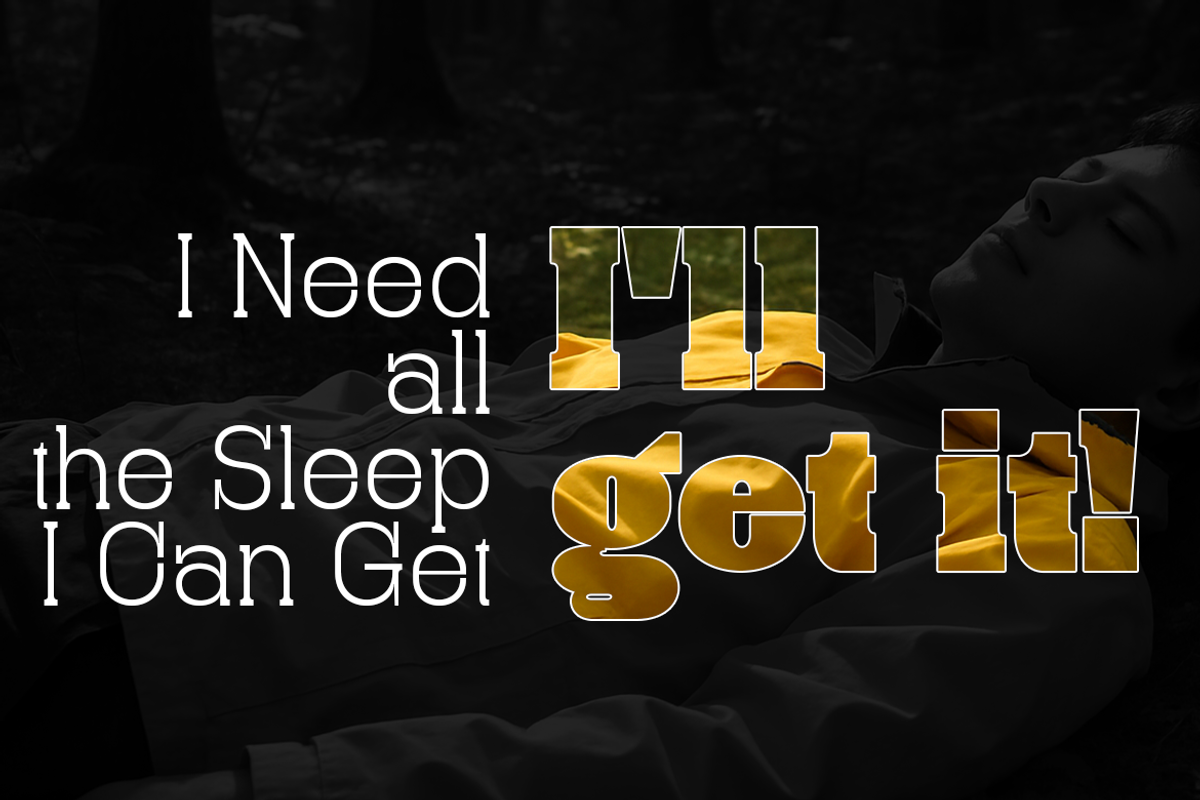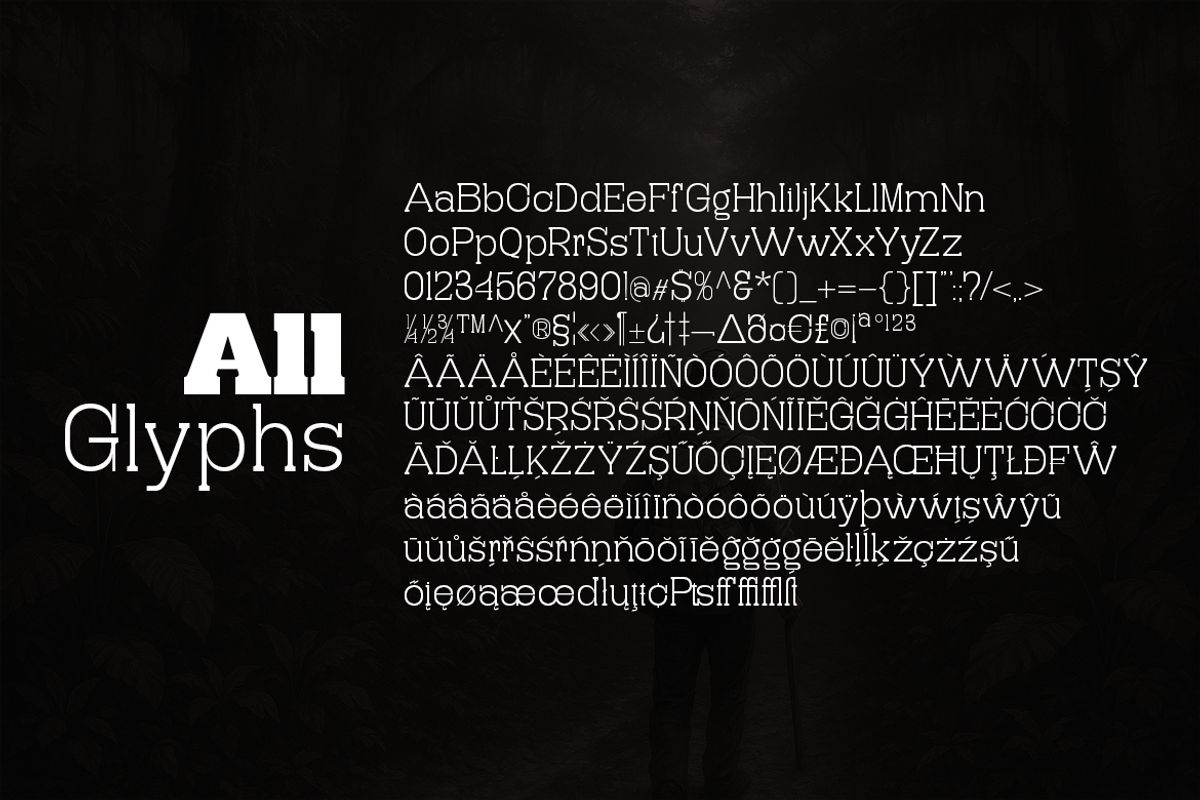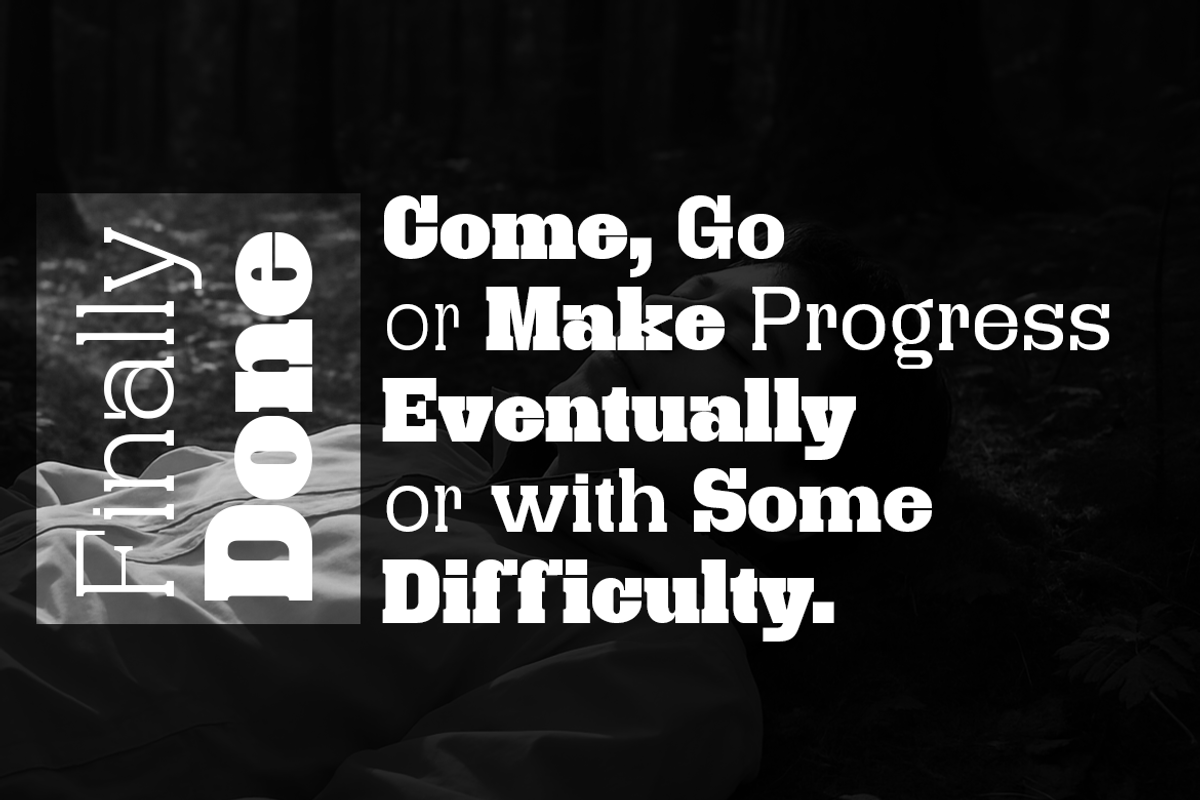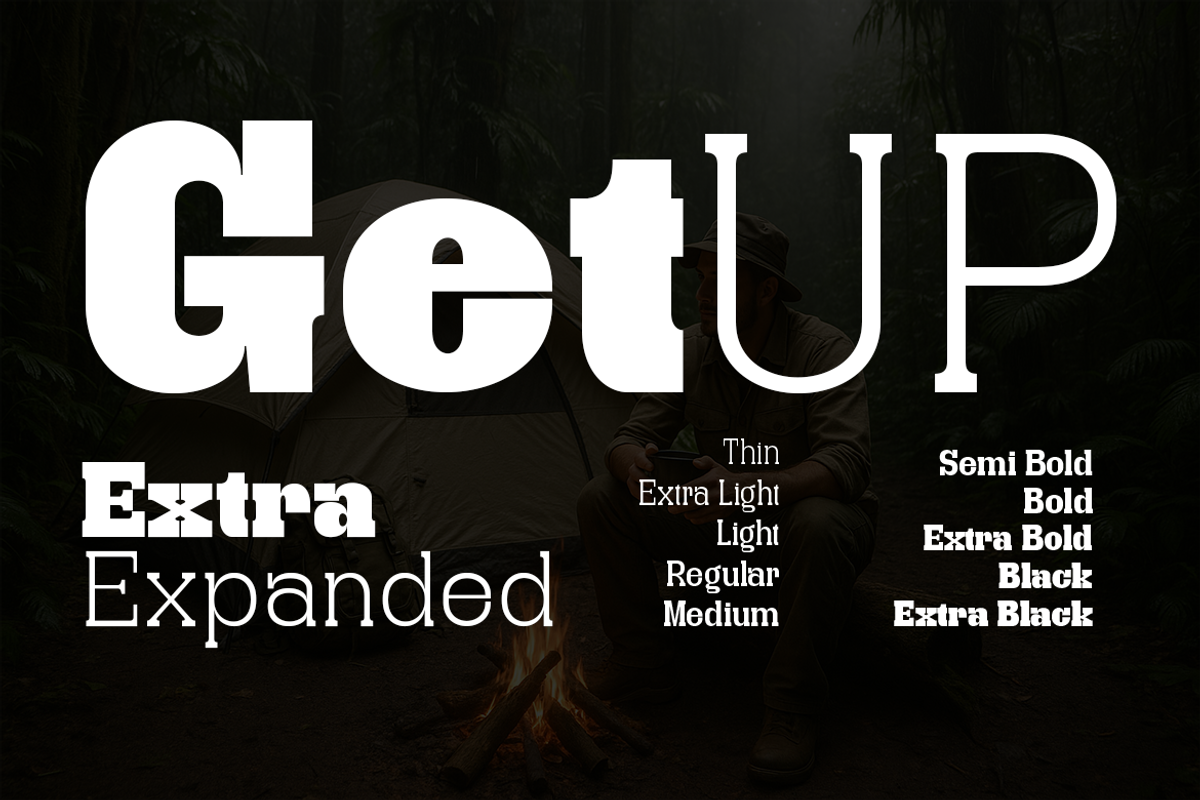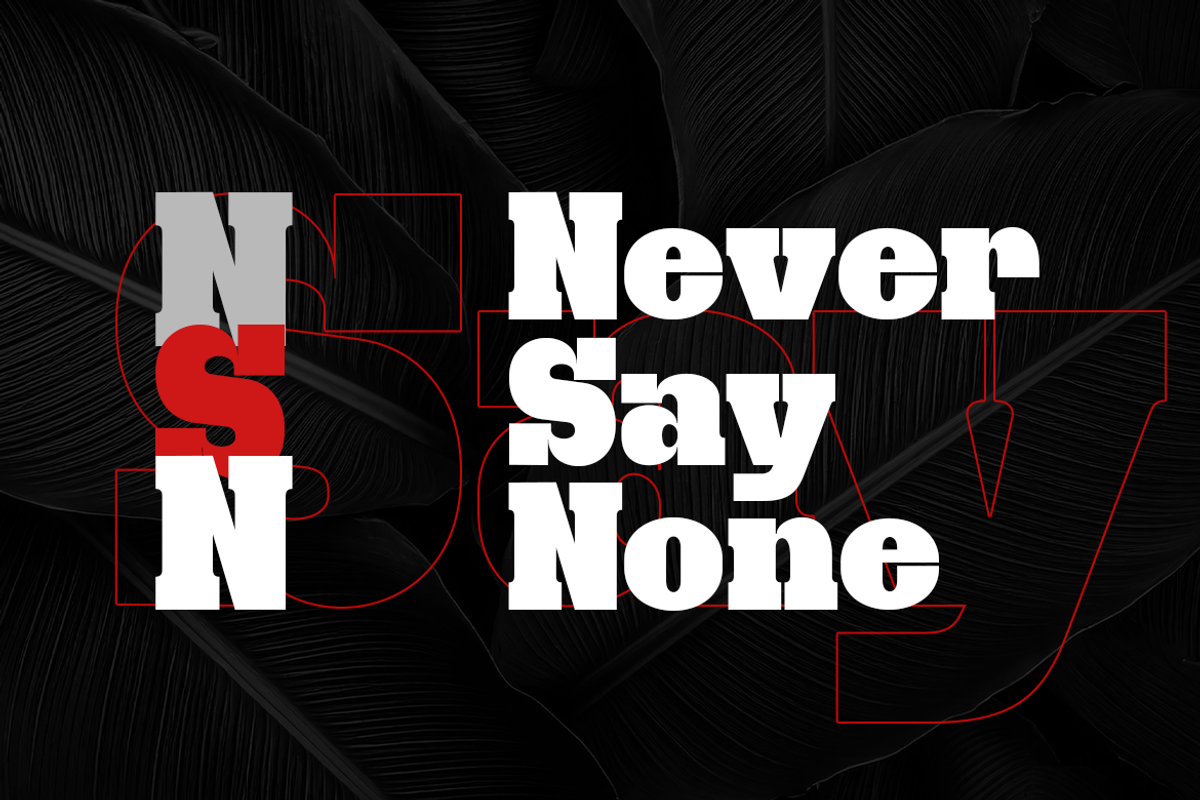
GetUp – Extra Expanded
GetUp – Extra Expanded (10 Weights: Thin–Extra Black)
Description: GetUp Extra Expanded is the most expressive and dominant category in the family. With 10 monumentally wide weights, it offers commanding layout power for ultra-large headlines, hero graphics, bold typography art, and high-energy branding. From airy Thin to massive Extra Black, every weight delivers strong slabs, monumental proportions, and unmistakable impact. This category is built for designs that need to be loud, clear, and unforgettable.